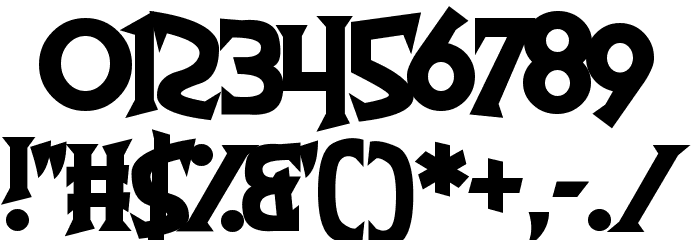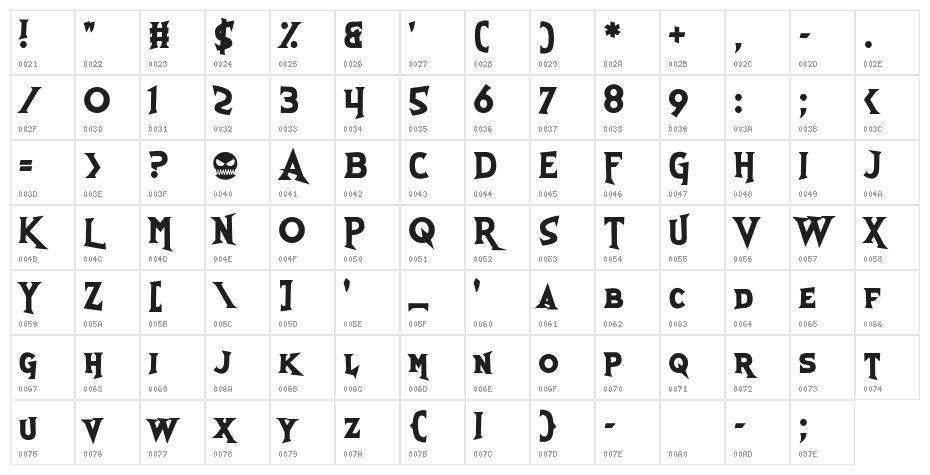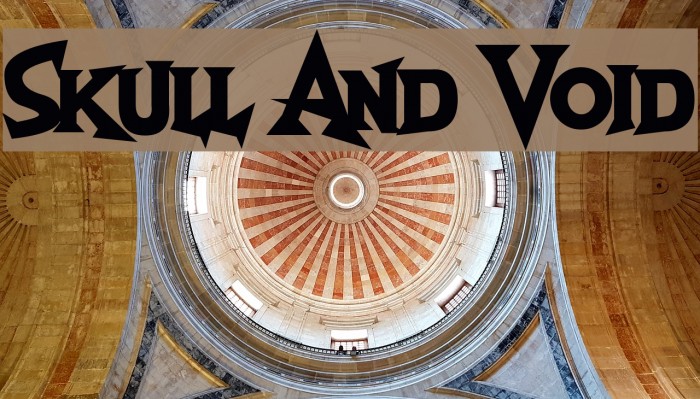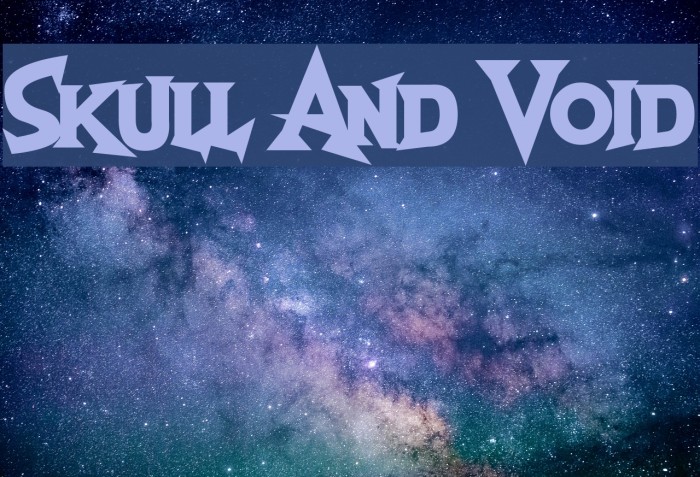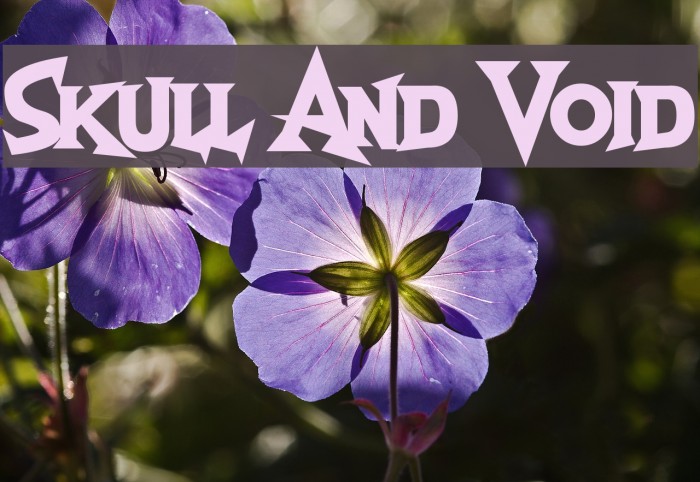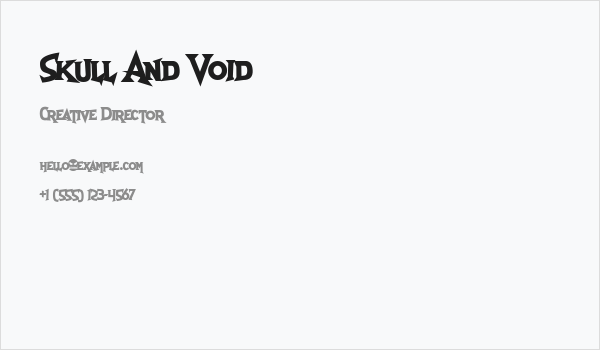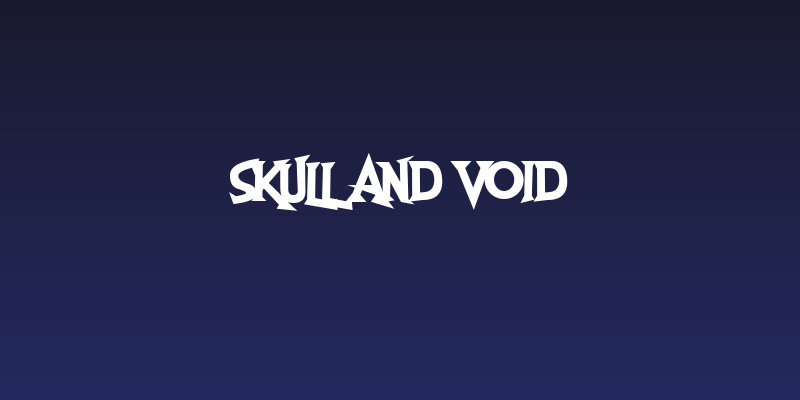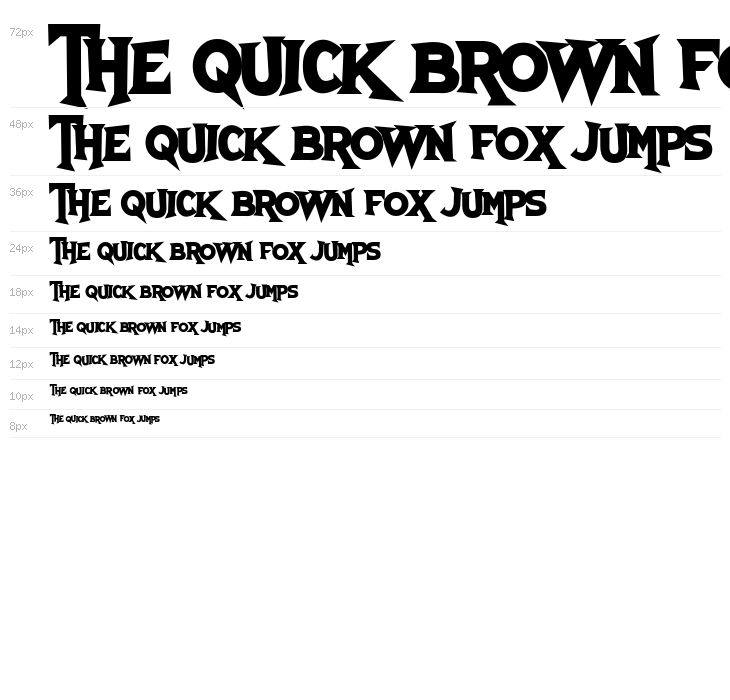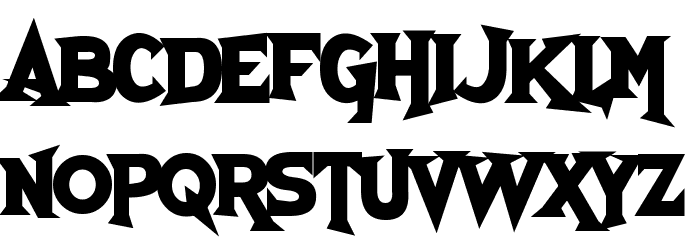
Skull And Void Font
Skull And Void Description
This font features a bold and aggressive style, characterized by sharp, angular edges and a heavy weight. The letters are designed with a gothic influence, giving them a dramatic and impactful appearance. The uppercase and lowercase letters maintain a consistent style, with exaggerated serifs and pointed terminals that enhance the font's edgy aesthetic. The numbers and special characters follow the same design principles, ensuring a cohesive look across all elements. This font is ideal for projects that require a strong visual impact and a sense of boldness.
Overall StyleGothic, Bold, Dramatic
Proposed ProjectsIdeal for album covers, posters, branding for edgy or alternative products, and any design needing a strong, impactful typeface.